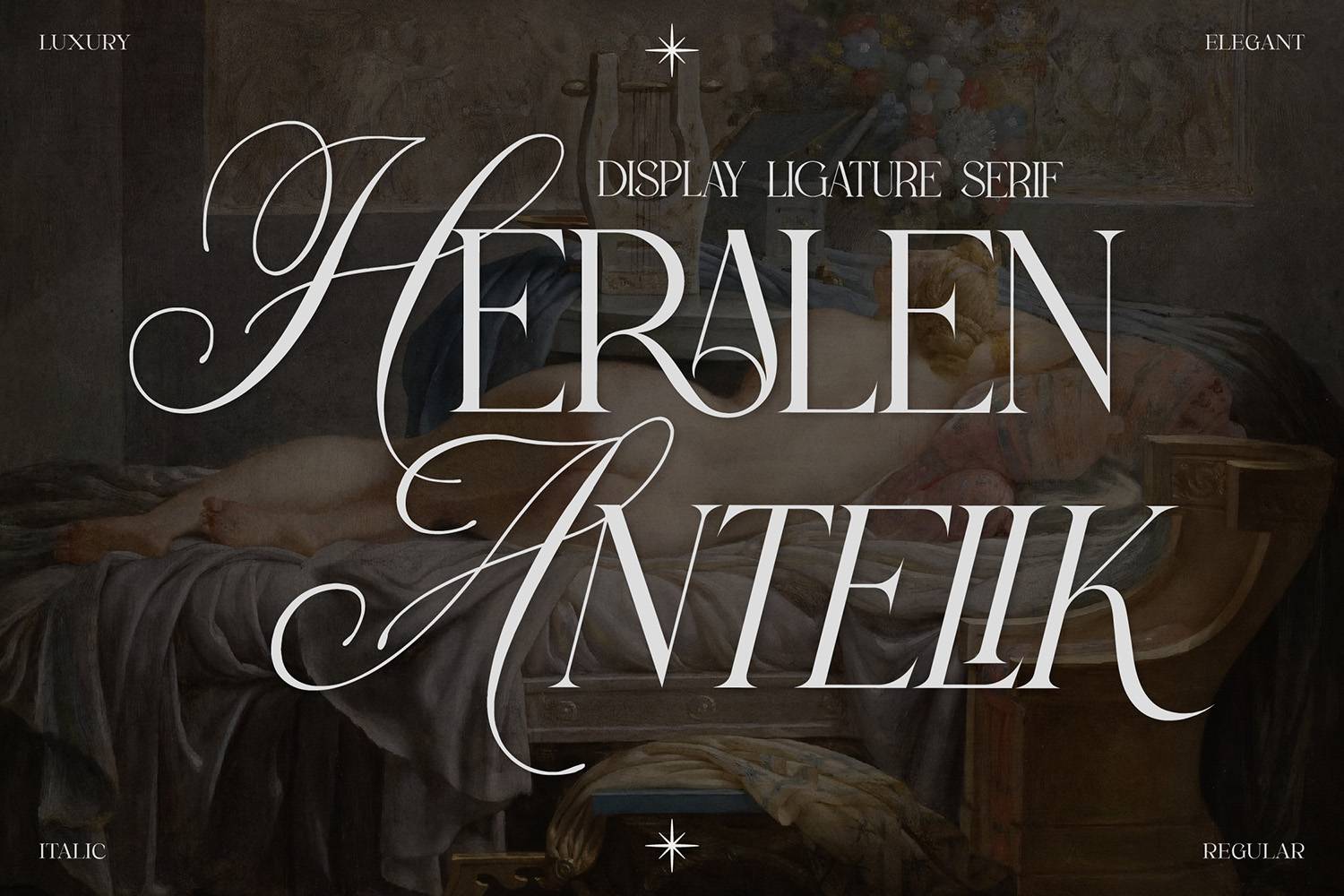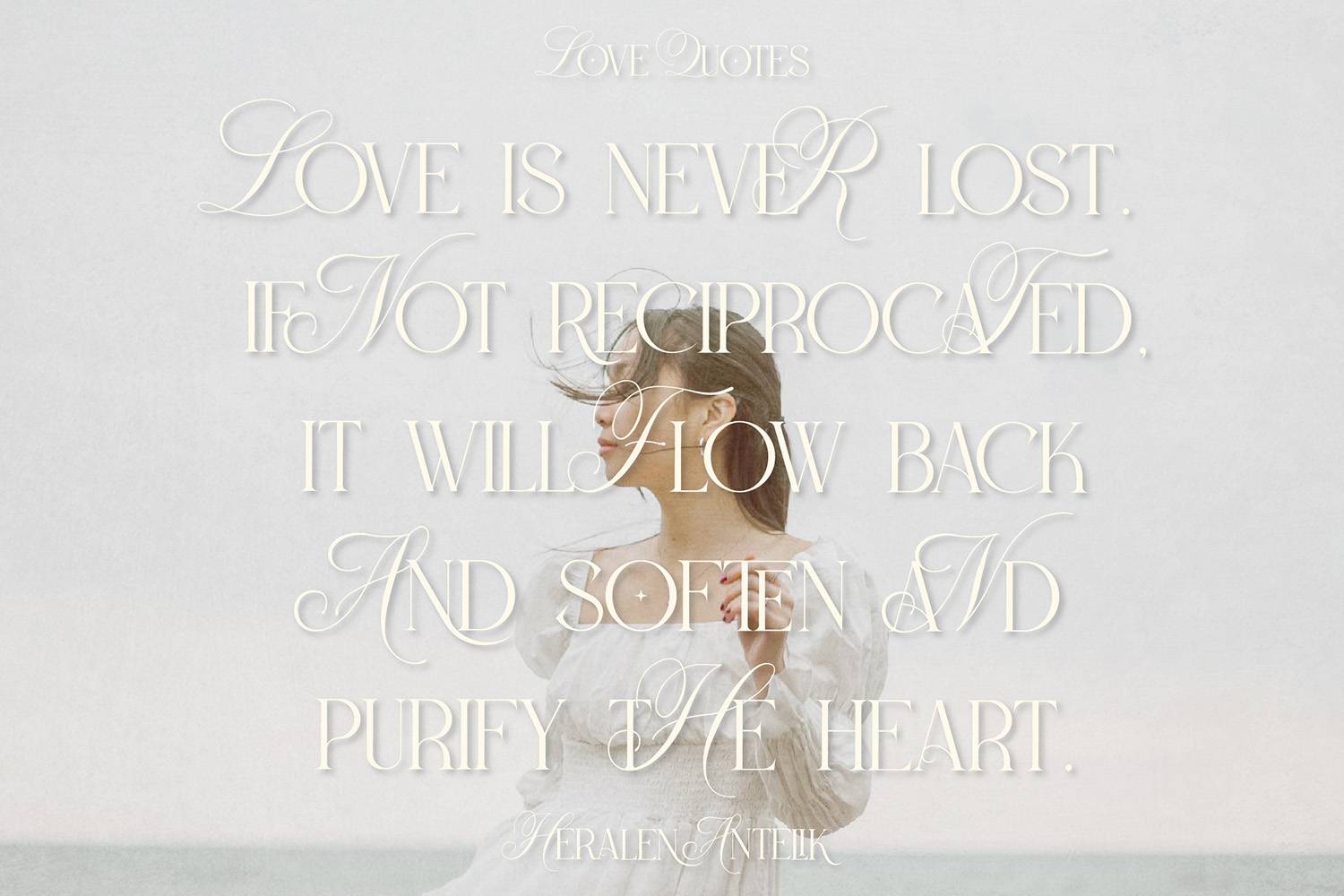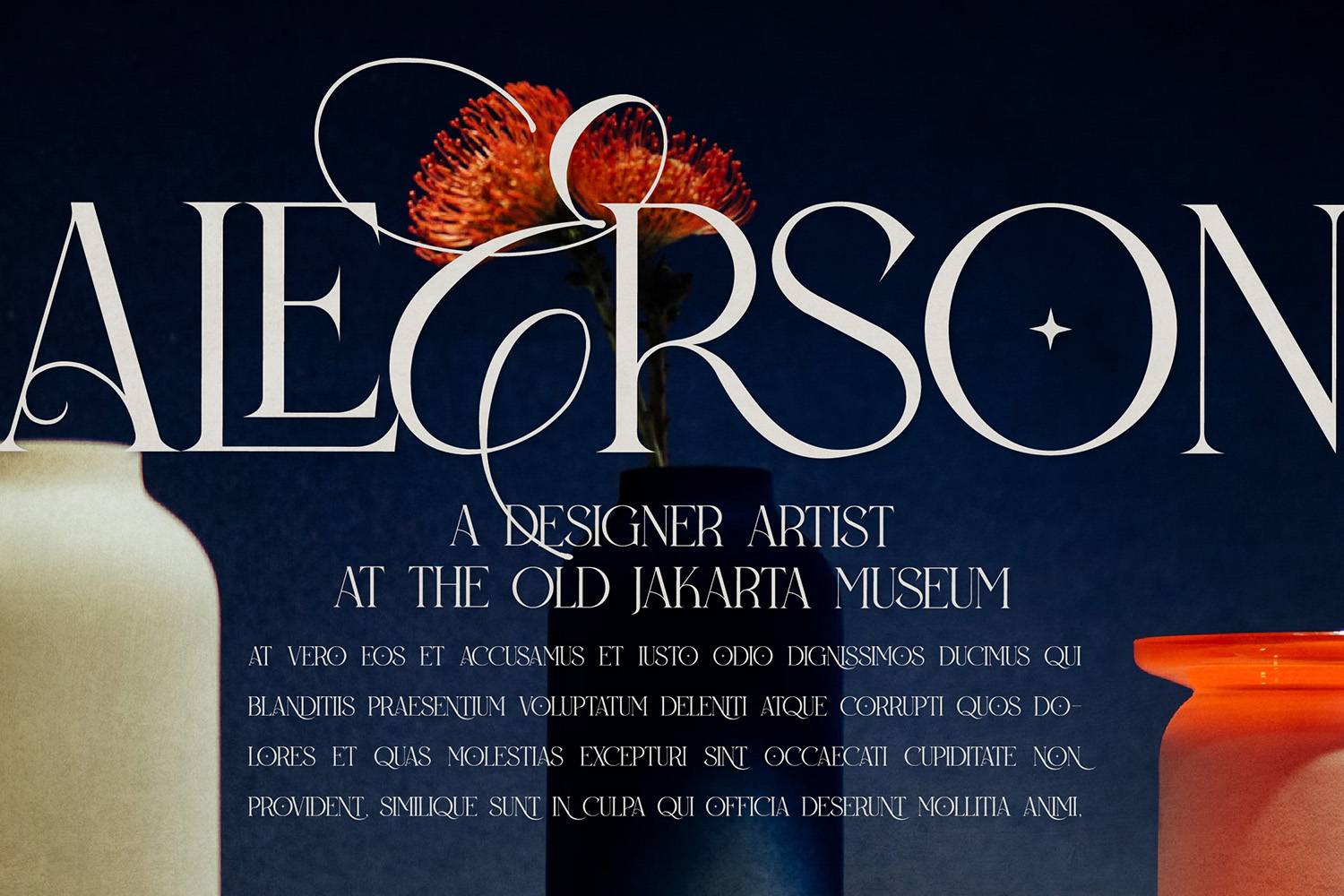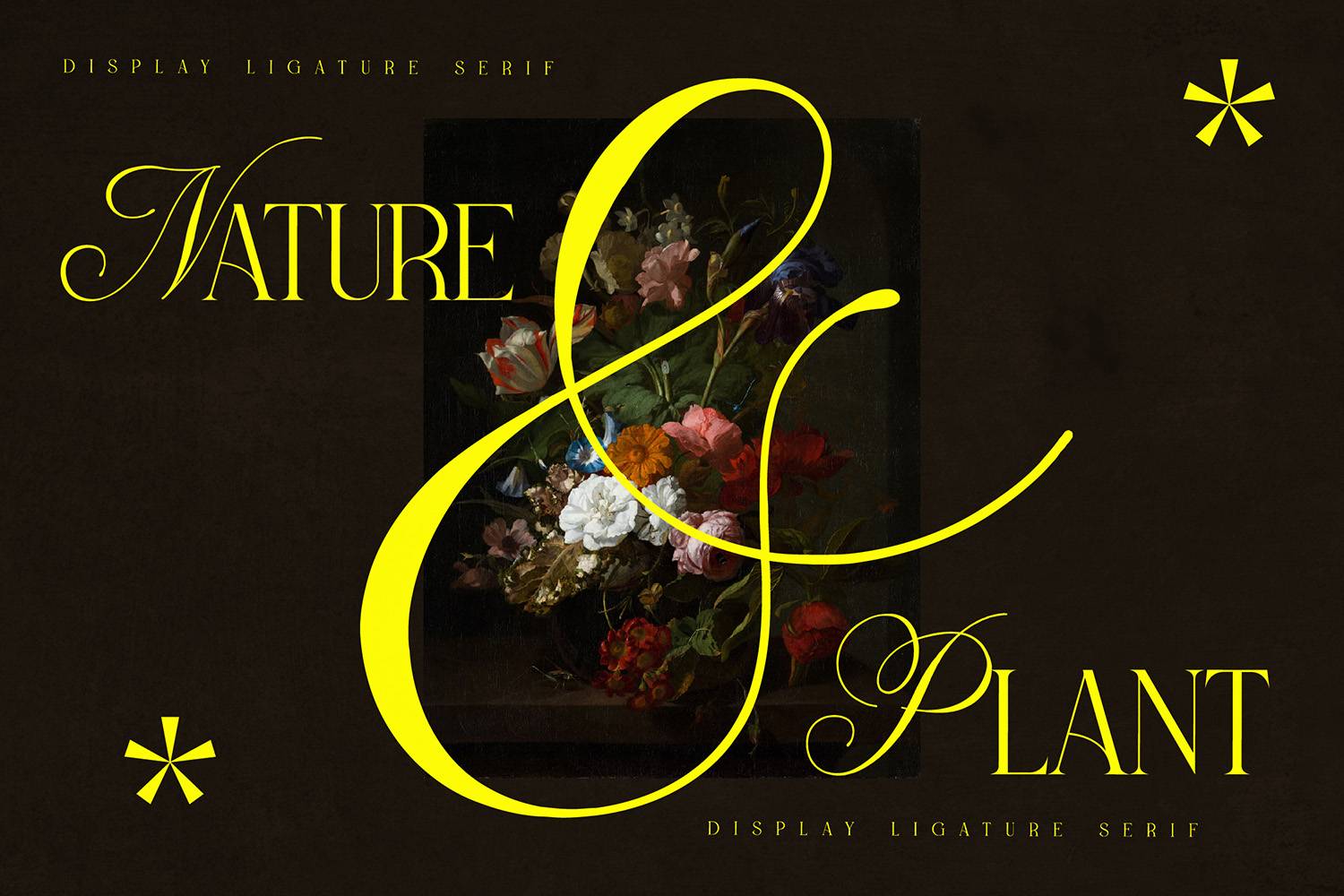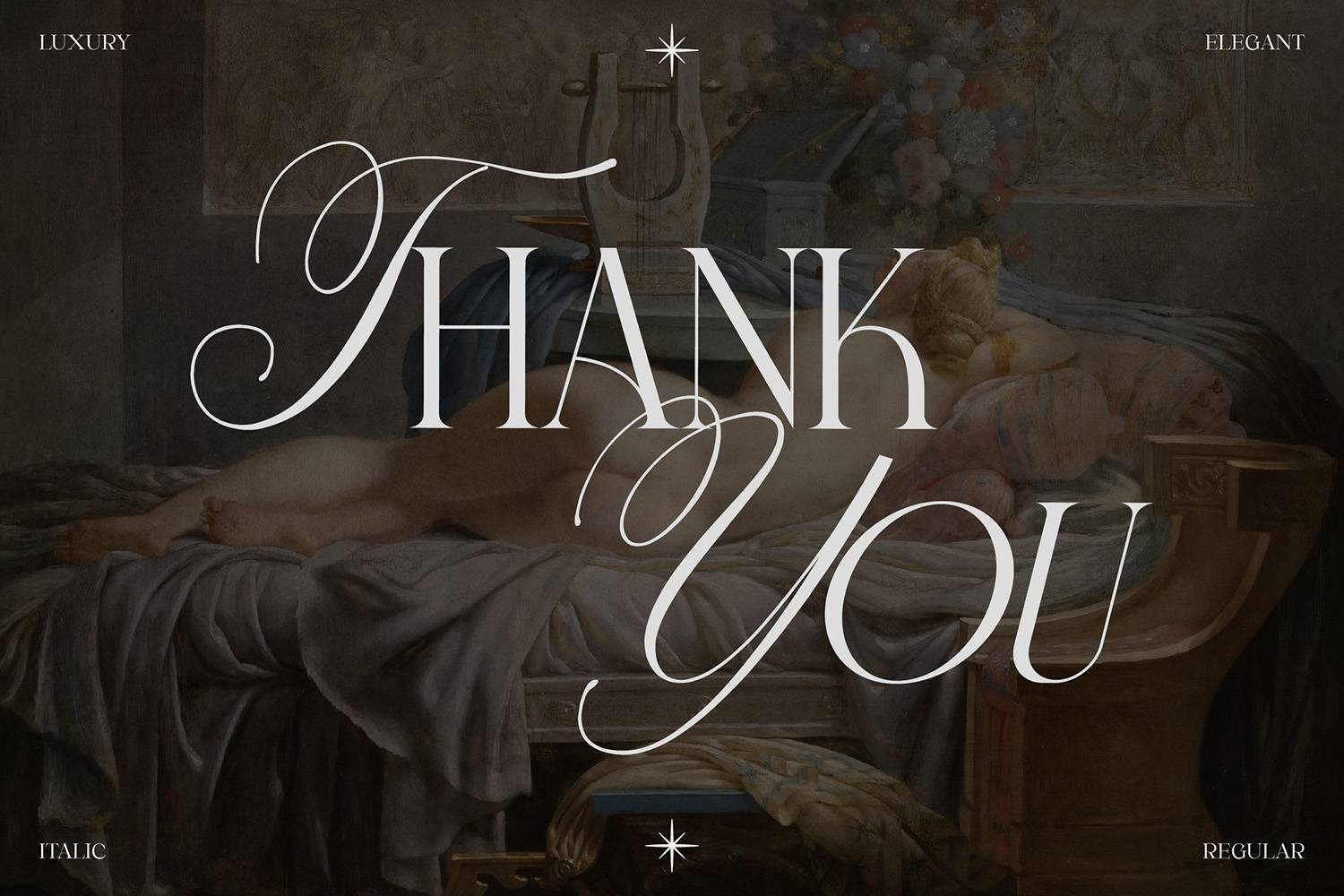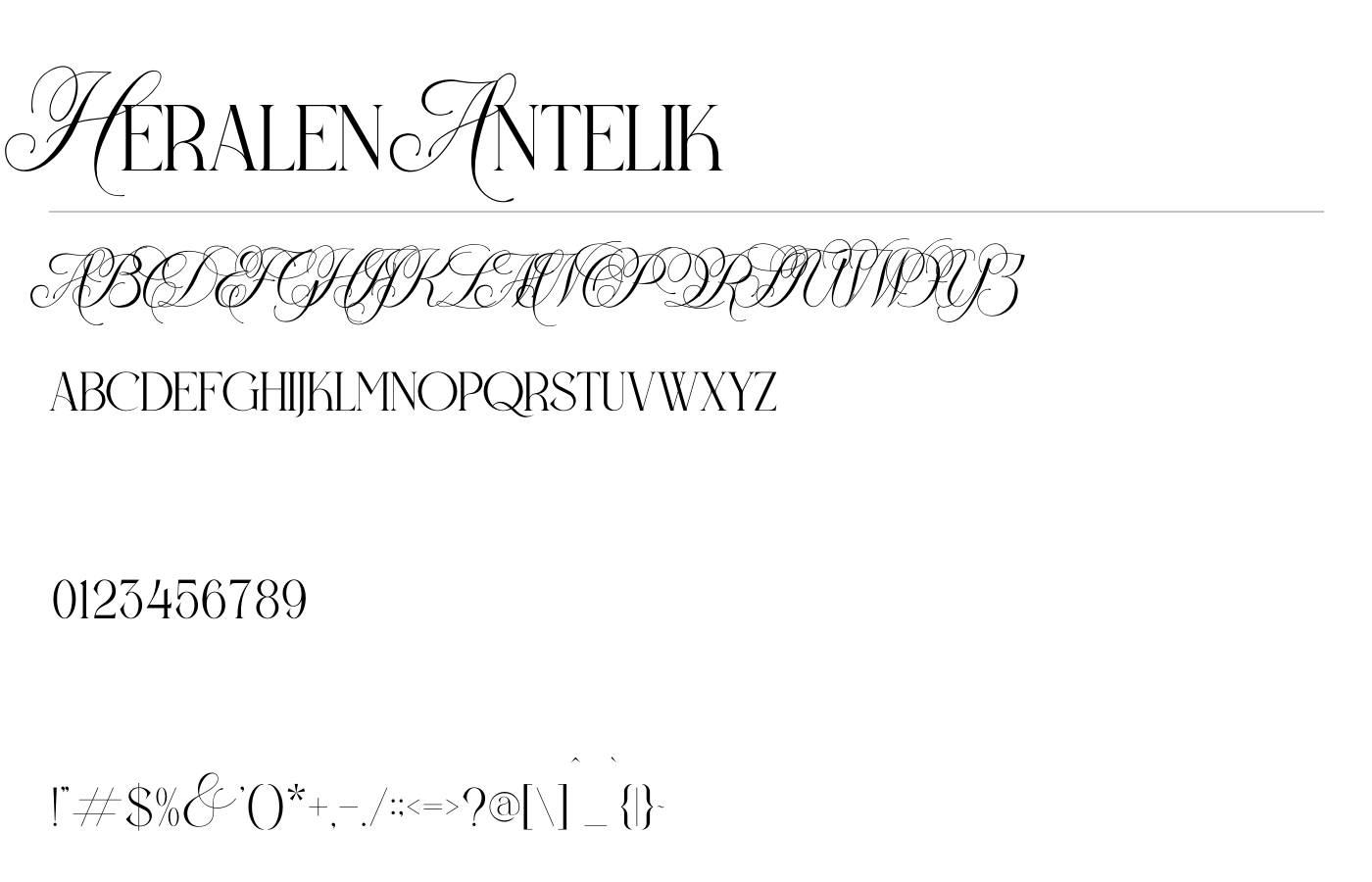
Heralen Antelik is an elegant serif font with a high contrast between thick and thin strokes, featuring delicate, thin serifs and a tall, narrow structure that exudes sophistication. Its refined letterforms, including graceful swashes and fine details, make it ideal for luxury branding, fashion, and upscale editorial design where a timeless, classy impression is desired. This font works best in headlines and decorative uses, where its intricate style can truly shine.
Heralen Antelik Font
About Heralen Antelik Font